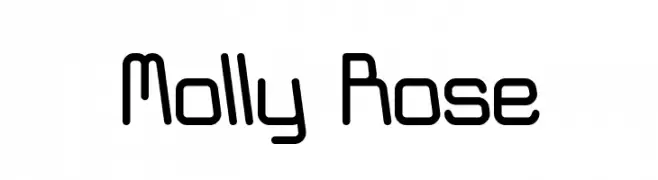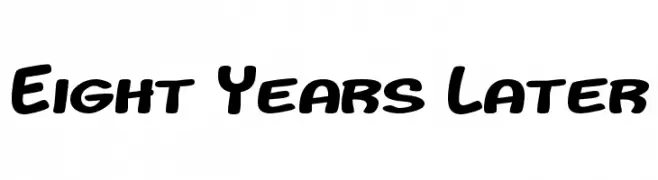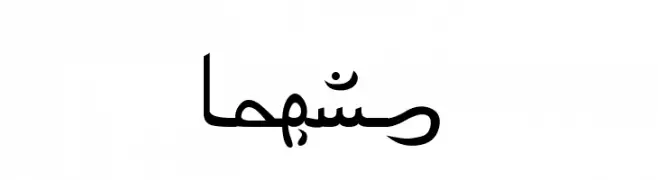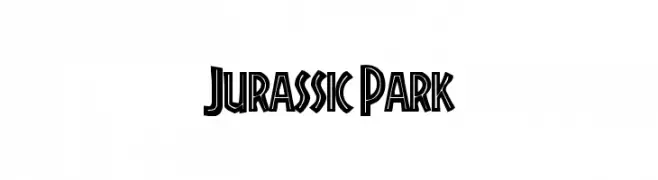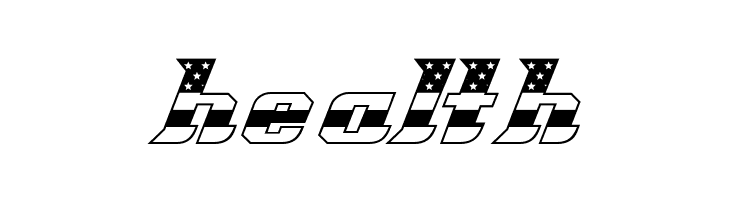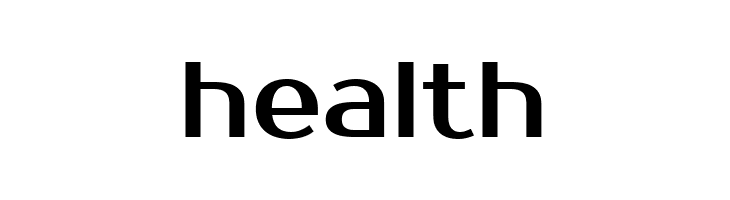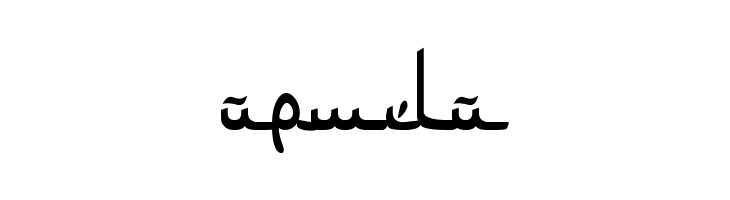
A modern, geometric monospaced font with rounded edges and consistent stroke thickness.
A bold, outlined font with angular, slanted characters for a dynamic look.
A bold, rounded font with a playful and friendly style.
A bold, decorative font with a patriotic stars and stripes theme.
A modern, geometric typeface with a clean and professional look.
A bold, expressive font with dynamic curves and sharp edges.
A playful, handwritten-style font with a quirky and informal design.
A playful, hand-drawn font with irregular, whimsical characters.
A bold, dynamic font with angular forms and a strong, adventurous style.